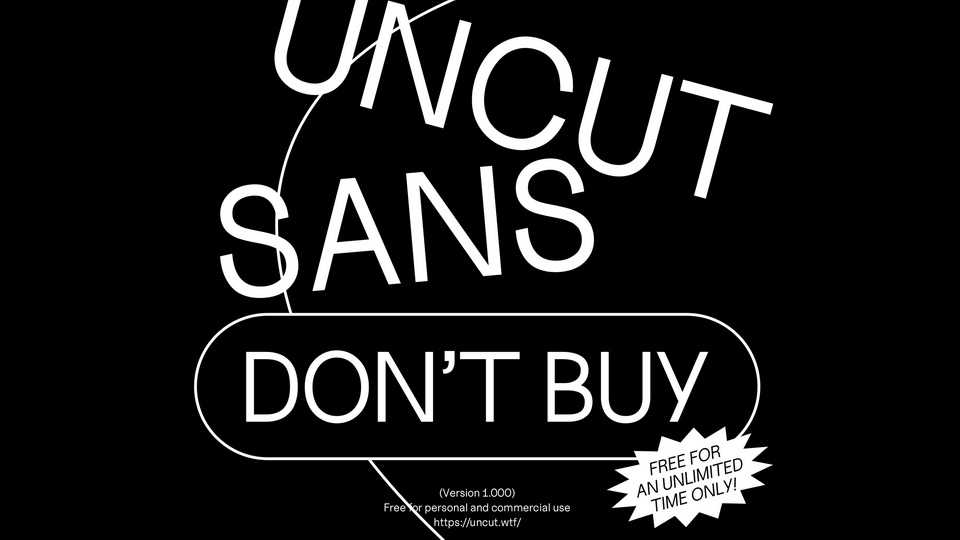
Download Uncut Sans font, a modern sans serif typeface with combination of clear lines, organic curves and geometric shapes. With its simplicity and neutrality, Uncut Sans works both for text and display use.
Designer: Kasper Nordkvist